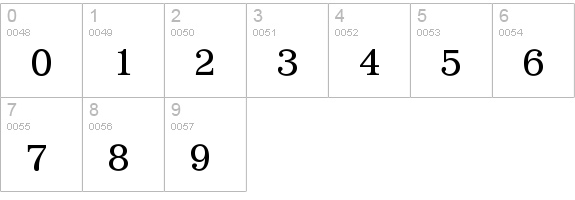
12 Impressum** Roman 05134 Font Details
12 Impressum Roman 05134 is a stunning and versatile font that is perfect for adding a touch of elegance and sophistication to any design project. With its classic serif style, this font exudes a sense of timeless beauty and will make your text stand out in a unique way. This font is meticulously crafted, with each letter carefully designed to maintain harmony and balance. The clean lines and crisp edges of 12 Impressum Roman 05134 give it a professional and polished look, making it suitable for a wide range of applications, from logos, branding, and advertising to invitations, headlines, and editorial designs. One of the best things about 12 Impressum Roman 05134 is that it is freely available to download at FontsMarket.com. This means that you can access this amazing font without any hassle or cost. Whether you are a professional designer or a hobbyist, this font offers you the opportunity to elevate your work without breaking the bank. Not only is 12 Impressum Roman 05134 visually appealing, but it also offers excellent legibility. The carefully designed letterforms ensure that your text is easy to read, no matter the size or context. This font is particularly well-suited for body text in print and digital formats, ensuring that your message is conveyed clearly and effectively. The versatility of 12 Impressum Roman 05134 is another standout feature. It effortlessly adapts to various design styles and can be paired with other fonts to create beautiful and harmonious compositions. Whether you are going for a classic and refined look or a more contemporary and edgy design, this font will complement your vision and add a touch of sophistication. In conclusion, 12 Impressum Roman 05134 is a visually stunning, versatile, and freely available font that will take your design projects to the next level. Download it now at FontsMarket.com and unlock the potential to create captivating and impactful designs.